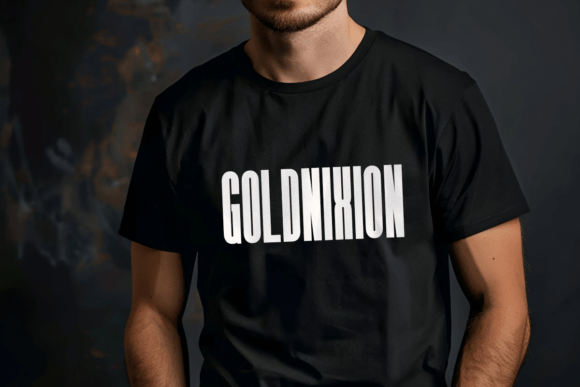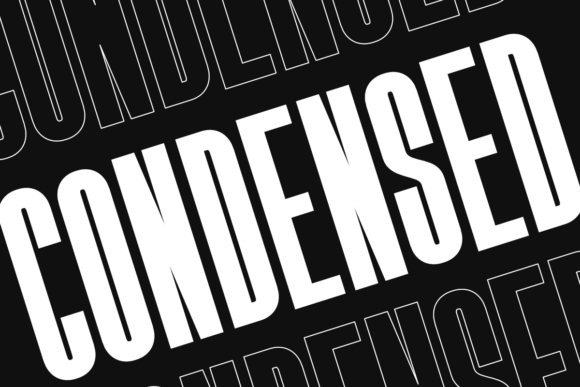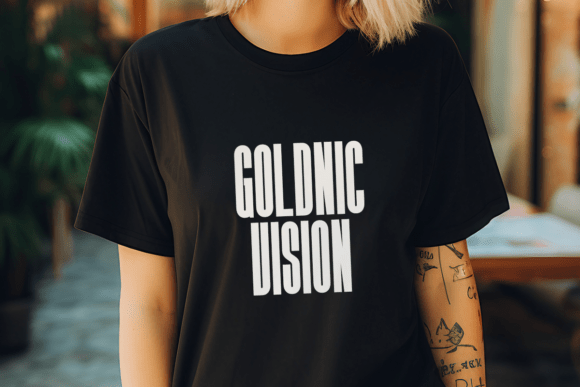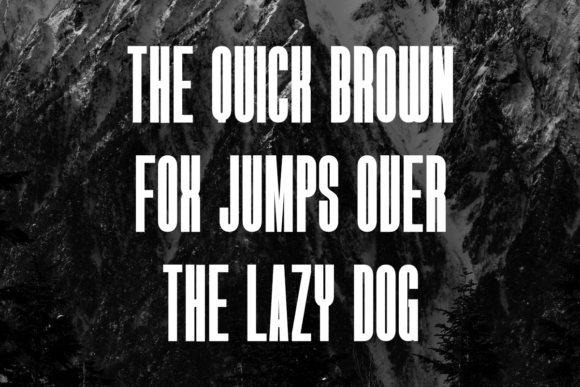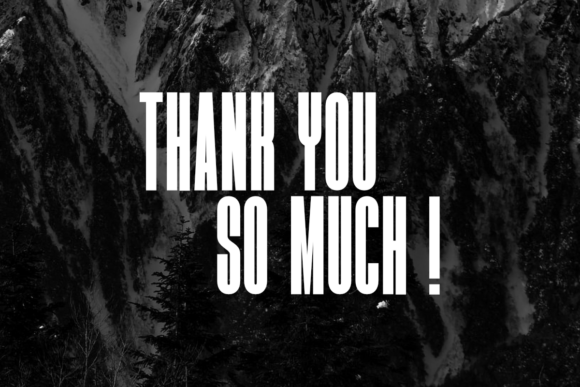
Introducing Goldnic Font: Elevate Your Designs with Sleek Sophistication
In the world of design, fonts play a pivotal role in conveying messages, evoking emotions, and creating lasting impressions. For creators who prioritize clean aesthetics and powerful visual statements, the Goldnic Font emerges as a game-changer. This sleek and stylish condensed sans-serif font is meticulously crafted to meet the demands of modern designers and crafters, offering a versatile tool for a wide array of projects.
Clean Aesthetics and Strong Visual Impact
Goldnic’s design is characterized by its tall, narrow letterforms and elegant spacing, making it an ideal choice for projects where space is limited but impact is crucial. Whether you’re working on print-on-demand products like t-shirts, posters, mugs, and tote bags, or aiming to create stunning film titles, logos, and packaging, Goldnic ensures your message is delivered with clarity and style.
One of the standout features of Goldnic is its versatility. This font seamlessly fits into both professional and playful design contexts, making it a valuable asset for a broad spectrum of projects. For designers looking to craft minimalist branding that speaks sophistication, or for filmmakers aiming to create cinematic visuals that captivate audiences, Goldnic provides the perfect blend of elegance and modernity.
Practical Benefits for Designers and Crafters
Applications of Goldnic Font
- Print-on-Demand Projects: Elevate your t-shirts, posters, mugs, and tote bags with a font that stands out without overwhelming the design.
- Film Titles and Cinematic Visuals: Create impactful and memorable titles that set the tone for your film or video project.
- Branding and Logos: Use Goldnic to craft modern, minimalist logos that communicate your brand’s values and style.
- Packaging Design: Add a touch of sophistication to your product packaging, making it more appealing to consumers.
- Crafting and DIY Projects: Whether you’re creating handmade cards, custom jewelry, or home decor, Goldnic adds a professional touch to your creations.
Why Choose Goldnic?
Choosing Goldnic for your design projects comes with several advantages:
- Unique Style: Stand out in a crowded market with a font that is both contemporary and timeless.
- High Versatility: Suitable for a wide range of projects, from professional branding to personal crafting.
Goldnic Font is more than just a typeface; it’s a design companion that empowers creators to push the boundaries of their imagination. With its sleek design, practical benefits, and versatile application, Goldnic is poised to become an indispensable part of your design toolkit. Whether you’re a professional designer, filmmaker, or crafter, Goldnic invites you to explore new dimensions of creativity and make your mark with elegance and impact.
Embrace the power of clean aesthetics and strong visual impact with Goldnic Font. Elevate your designs, captivate your audience, and let your creativity shine with a font that is as versatile as it is stylish.